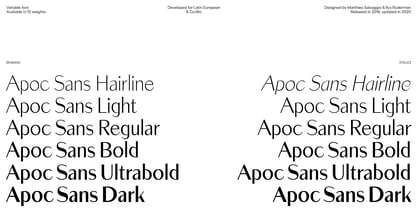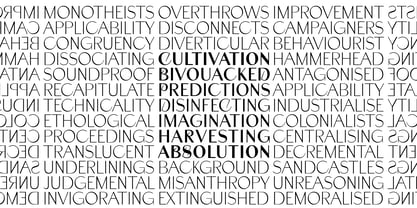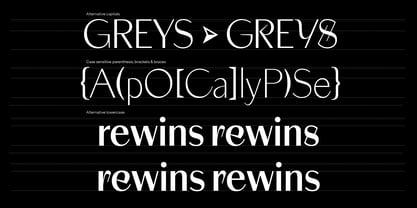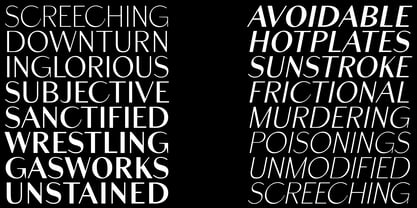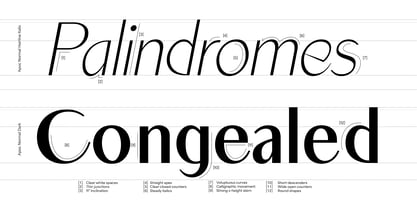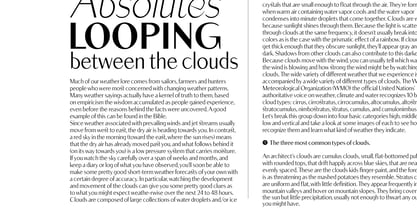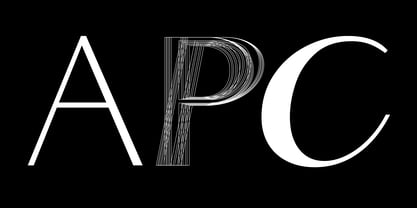
Apoc Sans
by Blaze Type
The Apoc Sans Font Family was designed by Léon Hugues, Matthieu Salvaggio and published by Blaze Type. Apoc Sans contains 13 styles and family package options. More about this family
Apoc Sans (2025 releases) embodies the battle between Light and Dark. Apoc(alypse)'s sharp character set & alternates were released in 2018 and updated in 2020 & 2022 by Matthieu Salvaggio. Cyrillic languages were designed by Ilya Ruderman (Tomorrow Type) and Yury Ostromentsky (CSTM Fonts). Defined by designers as the most popular typeface of standout contemporary independent design, Apoc is an elegant, sharp, expressive font family, perfect for bold standout displays focusing on heavy font uses.
Designers: Léon Hugues, Matthieu Salvaggio
Foundry: Blaze Type